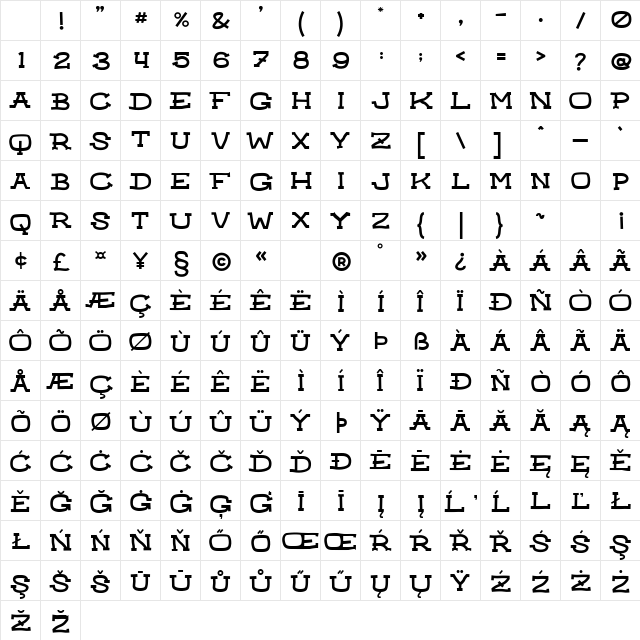
Complete Retro Badger Regular glyph index. Displaying only characters natively supported by Retro Badger Regular font.
Retro Badger wears its vintage influences proudly, with letterforms that recall mid-century signage, classic packaging, and nostalgia-driven design.
Font Pairing: Combine Retro Badger with a simple slab or neutral sans - period-accurate companions reinforce the vintage feel without competing for attention.
Pro Tip: Lean into Retro Badger's period character by pairing it with aged paper textures, muted colour palettes, and vintage illustration styles.